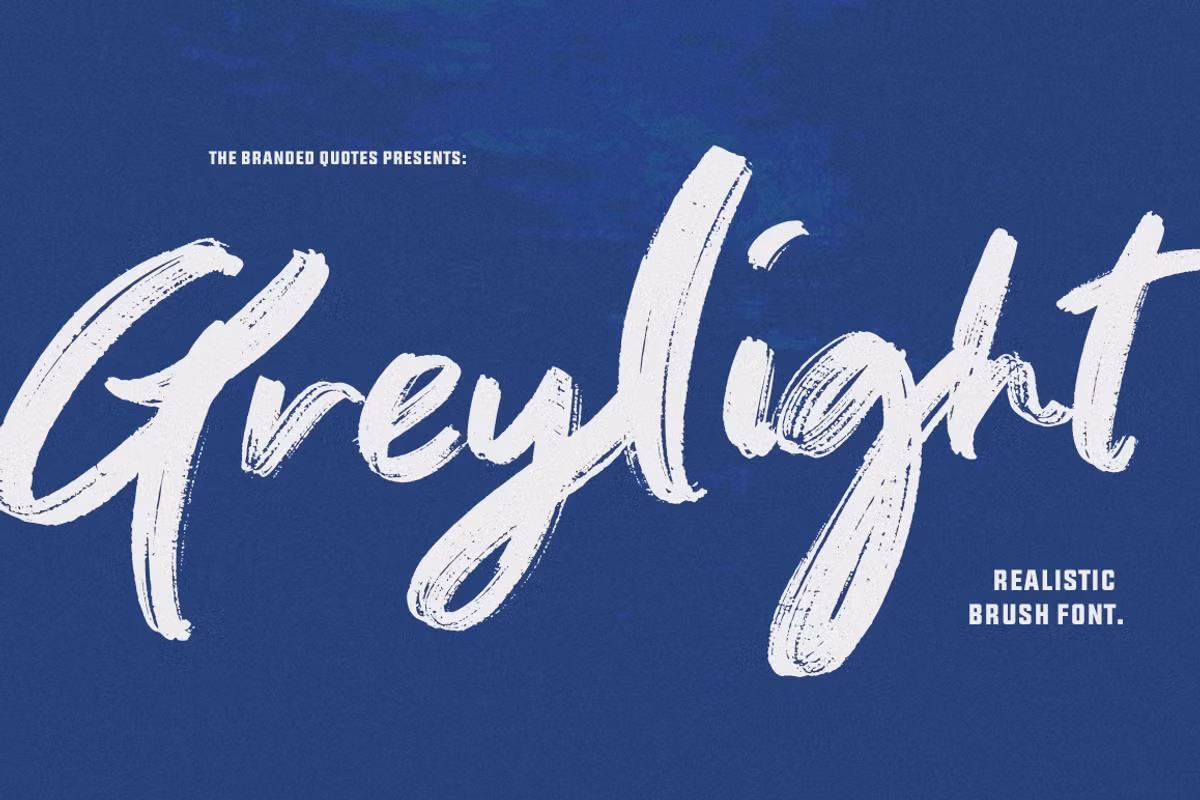
Greylight Brush Font Free Download
Greylight Brush Font Free Download is a bold and expressive handwritten typeface created with natural brush strokes. Perfect for eye-catching headlines, posters, merchandise, music covers, and social media graphics, this font delivers a raw, energetic feel that adds impact to any design.
With its textured edges and dynamic flow, Greylight brings a sense of motion and personality to your typography. Whether you're aiming for a street-style aesthetic or a modern handcrafted look, this font adapts effortlessly while making your message stand out.